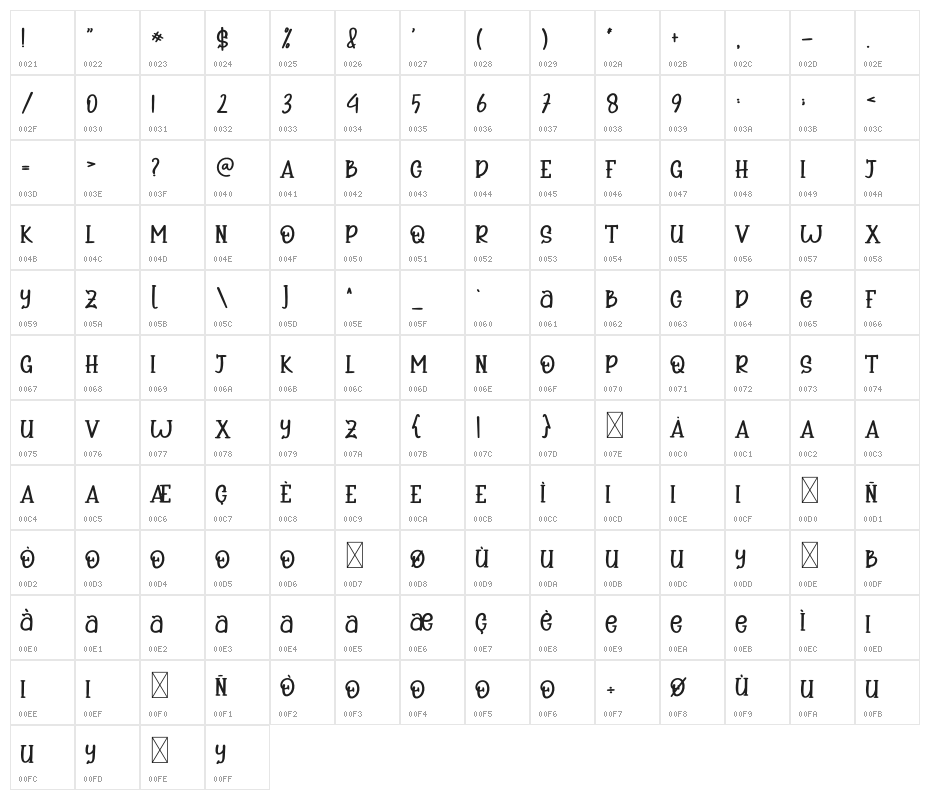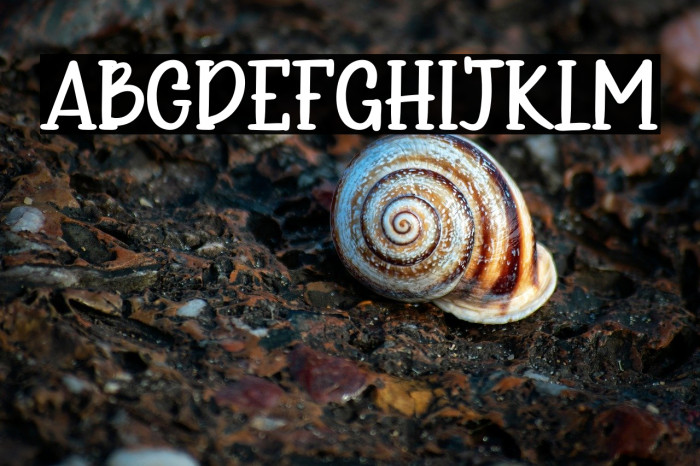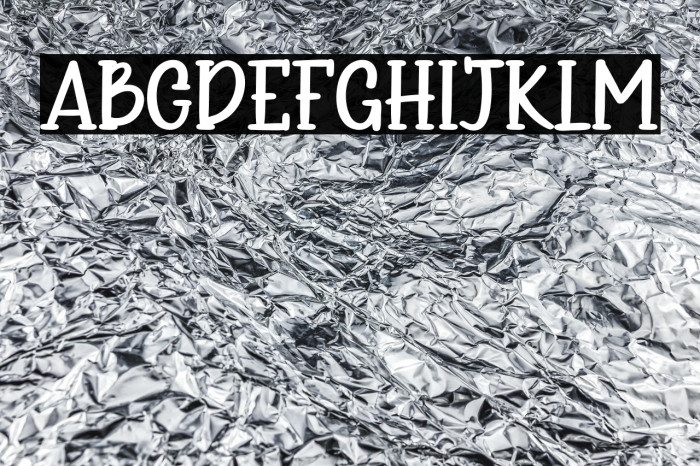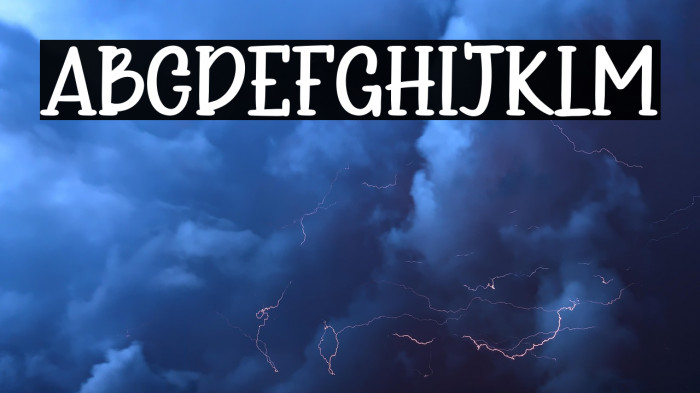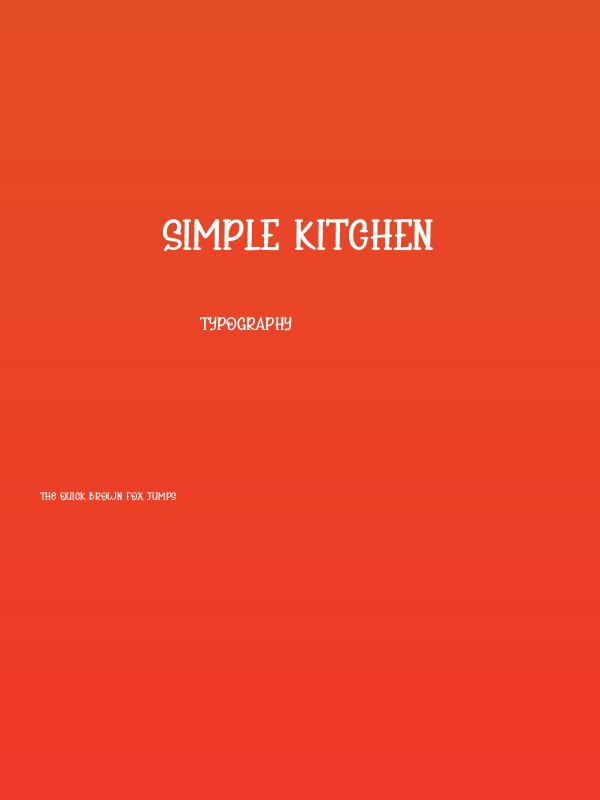
Simple Kitchen Font
Simple Kitchen Description
This font features a playful and slightly whimsical design, characterized by its bold and rounded letterforms. The strokes are consistent in width, creating a uniform appearance that is easy to read. The uppercase and lowercase letters maintain a cohesive style, with subtle variations that add charm. The numbers and special characters are designed to match the overall aesthetic, making it versatile for various uses. The font's style is approachable and friendly, making it suitable for projects that require a touch of personality and warmth.
| Overall Style | Playful |
| Proposed Projects | Ideal for children's books, playful branding, casual invitations, and creative posters. |